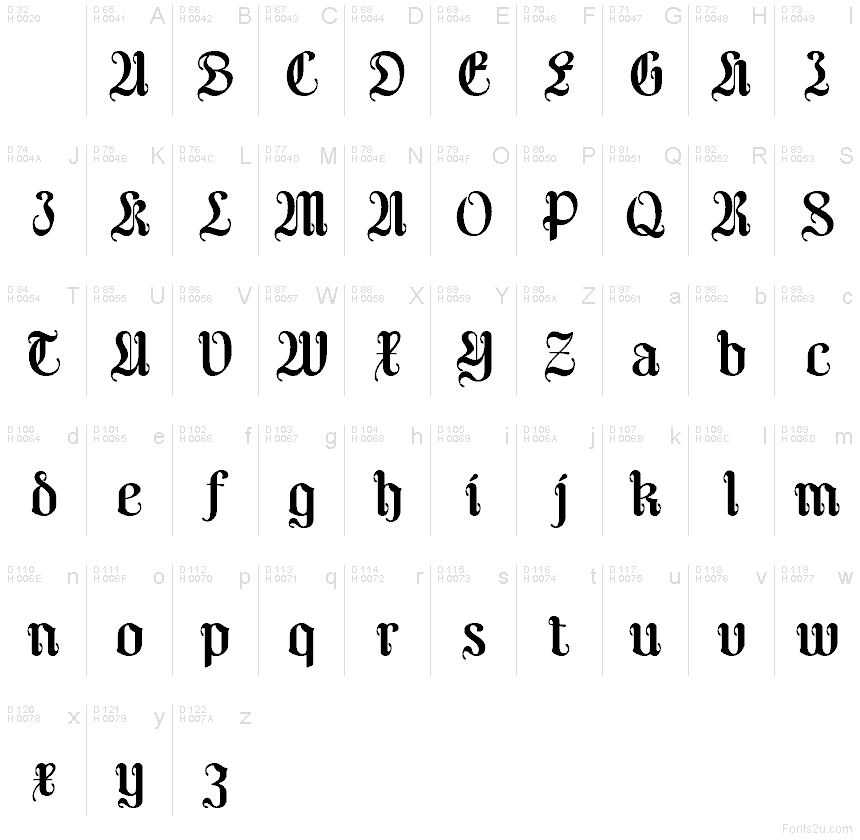
CS Meliora font by Craft Supply Co. is a free gothic script font with curly and decorative characters. The typeface has sophisticated ornamental letter designs inspired by historic and dramatic aesthetics. Many designers would choose it to give their text projects a touch of elegance and sophistication that would set them apart from other projects.
Use CS Meliora in packaging, labels, posters, cards, invitation postcards or book covers. More web-based use cases can involve ads, banners, website headers/footers or even business logos. A simple watermark can also be done on top of your digital photos either on blogs or your commercial Instagram account!